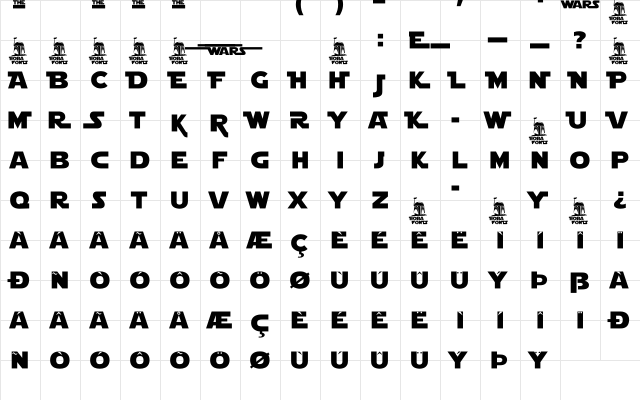
Star Jedi Logo DoubleLine2 Regular
Design Context for Star Jedi Logo DoubleLine2 Typeface
Star Jedi Logo DoubleLine2 is a composed and adaptable typeface that performs quietly and consistently across a wide range of design contexts.